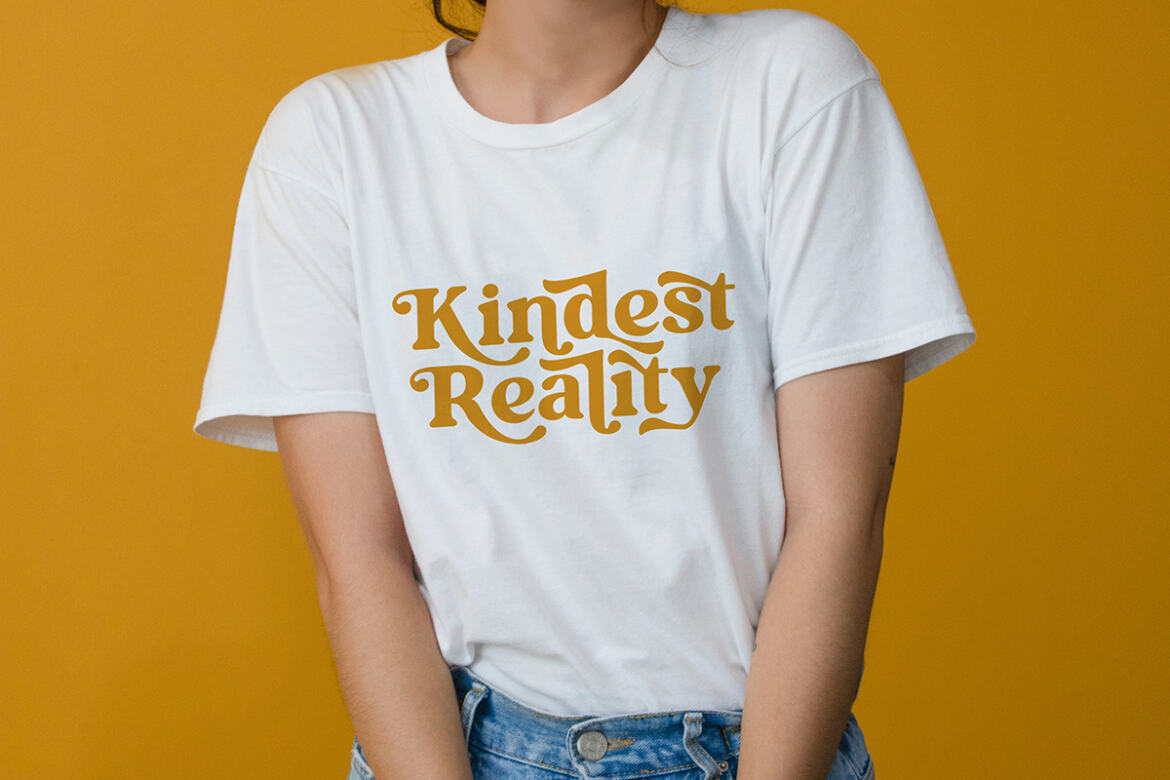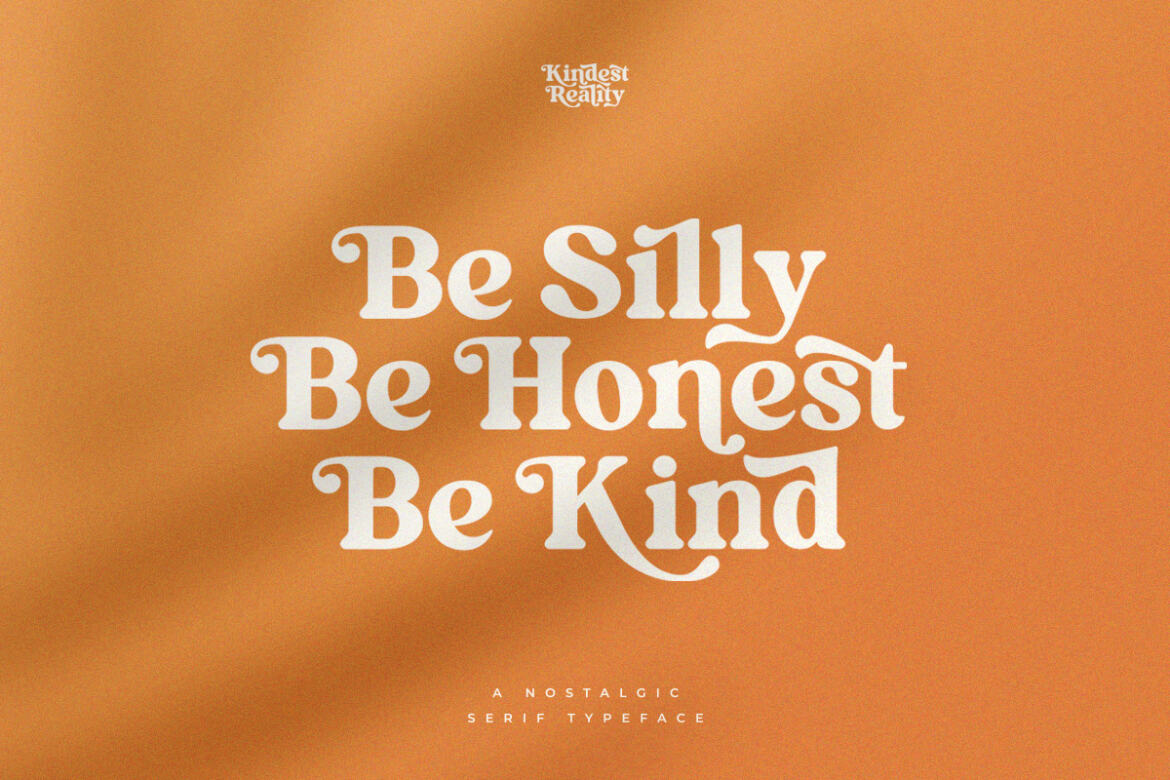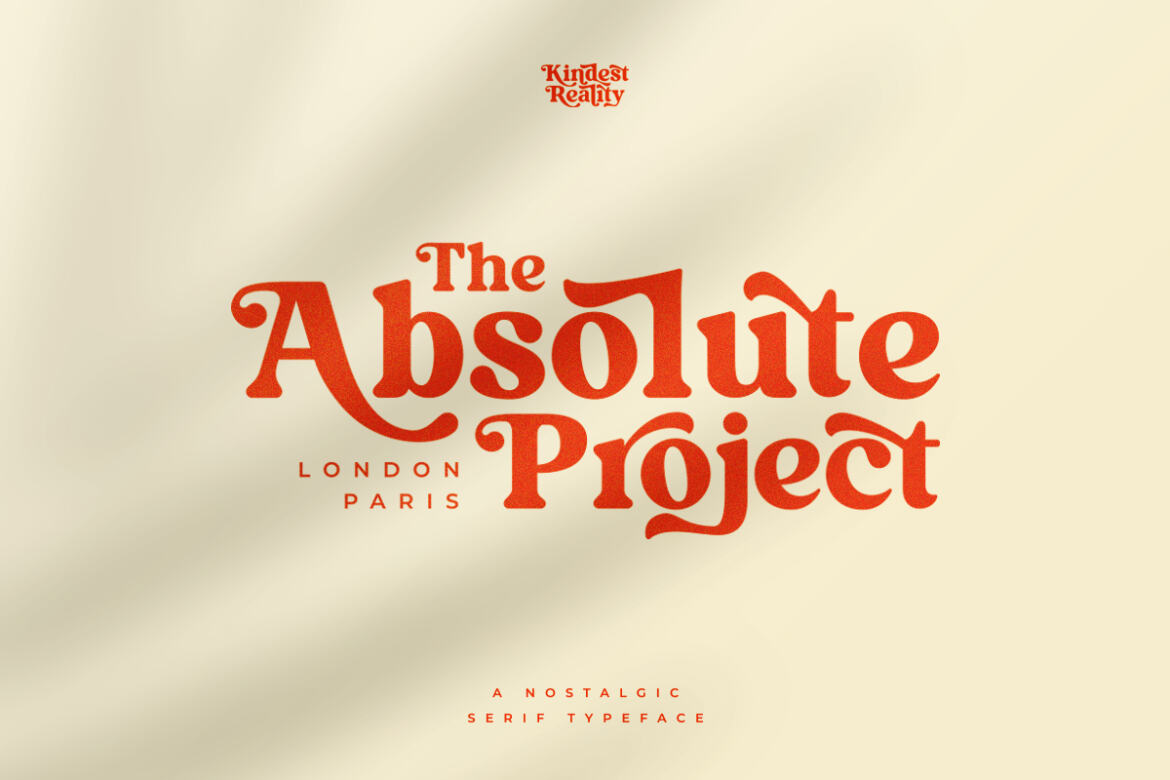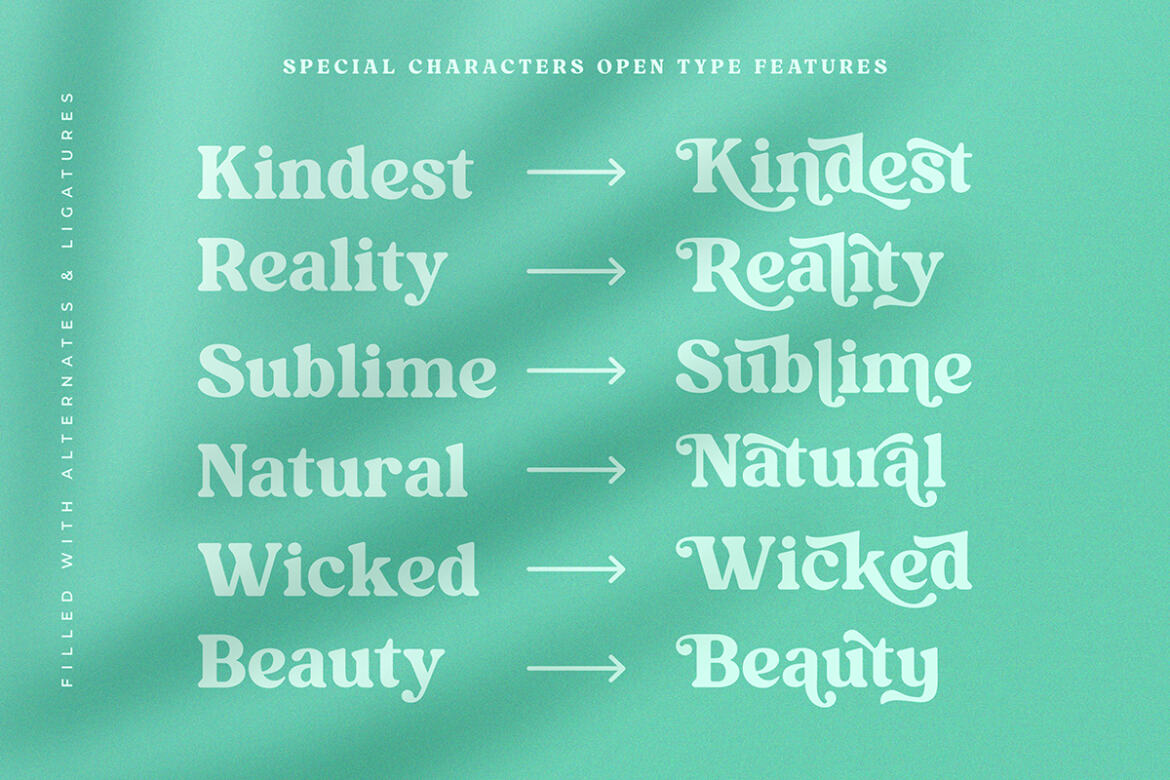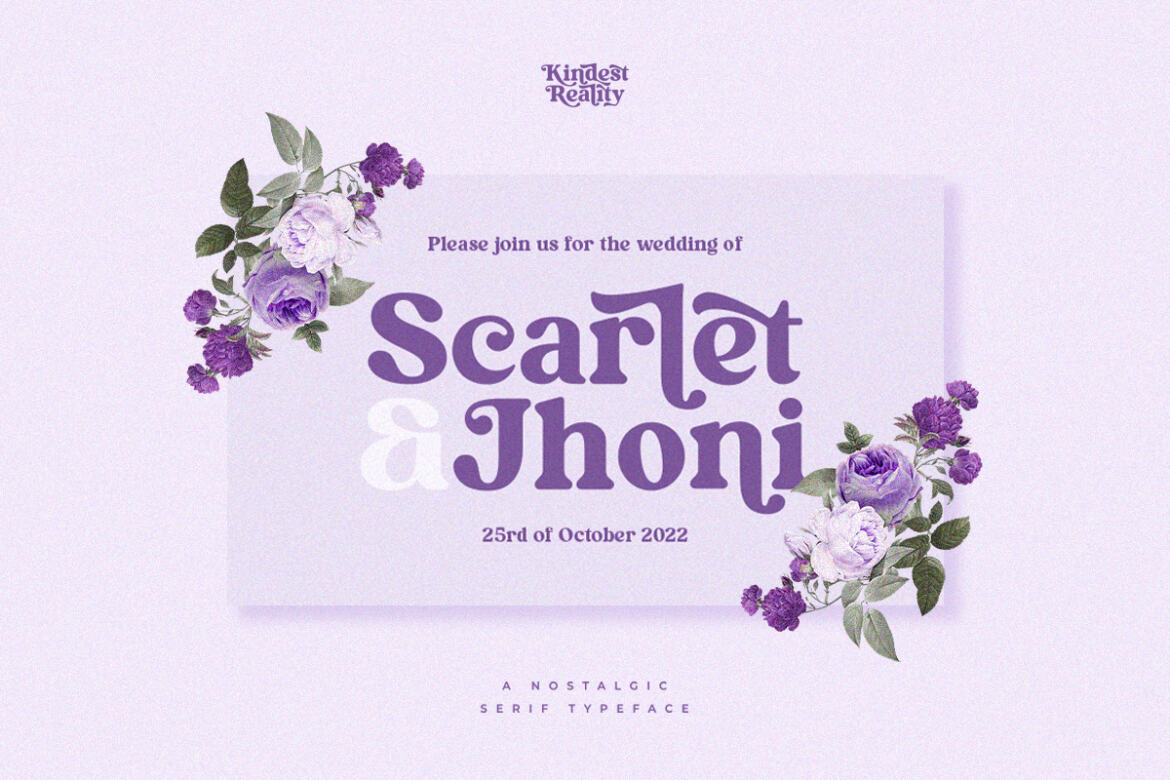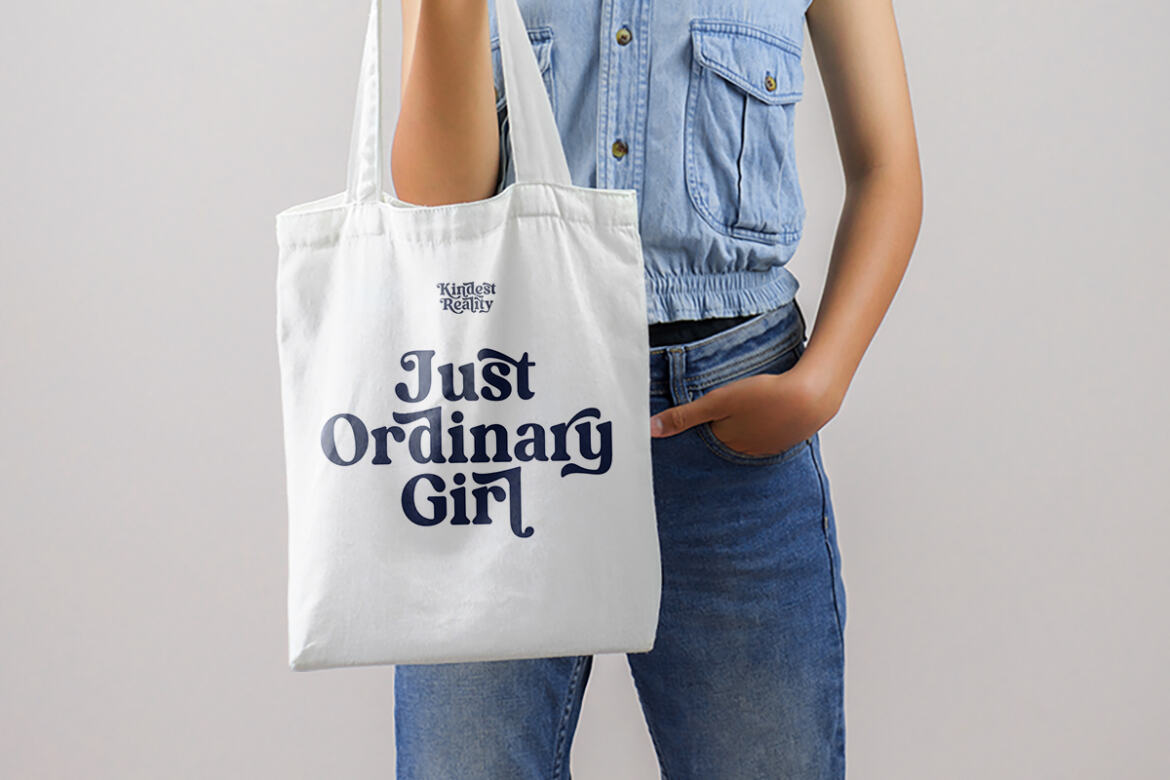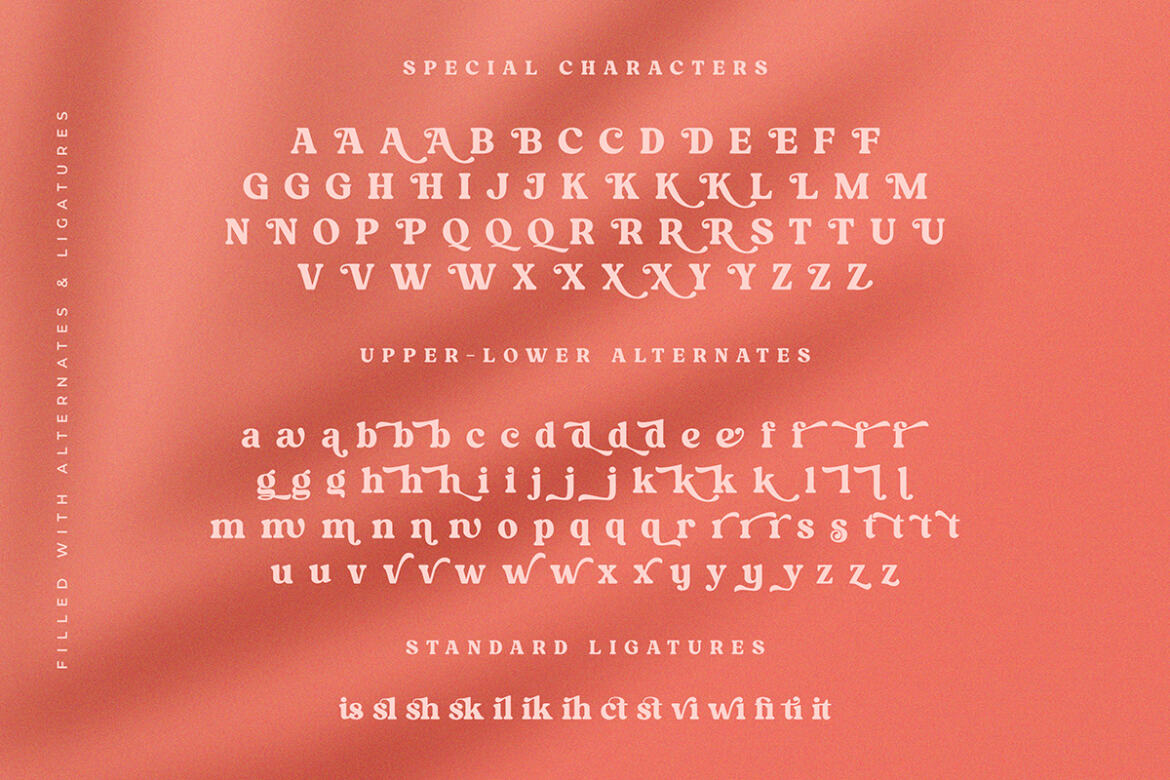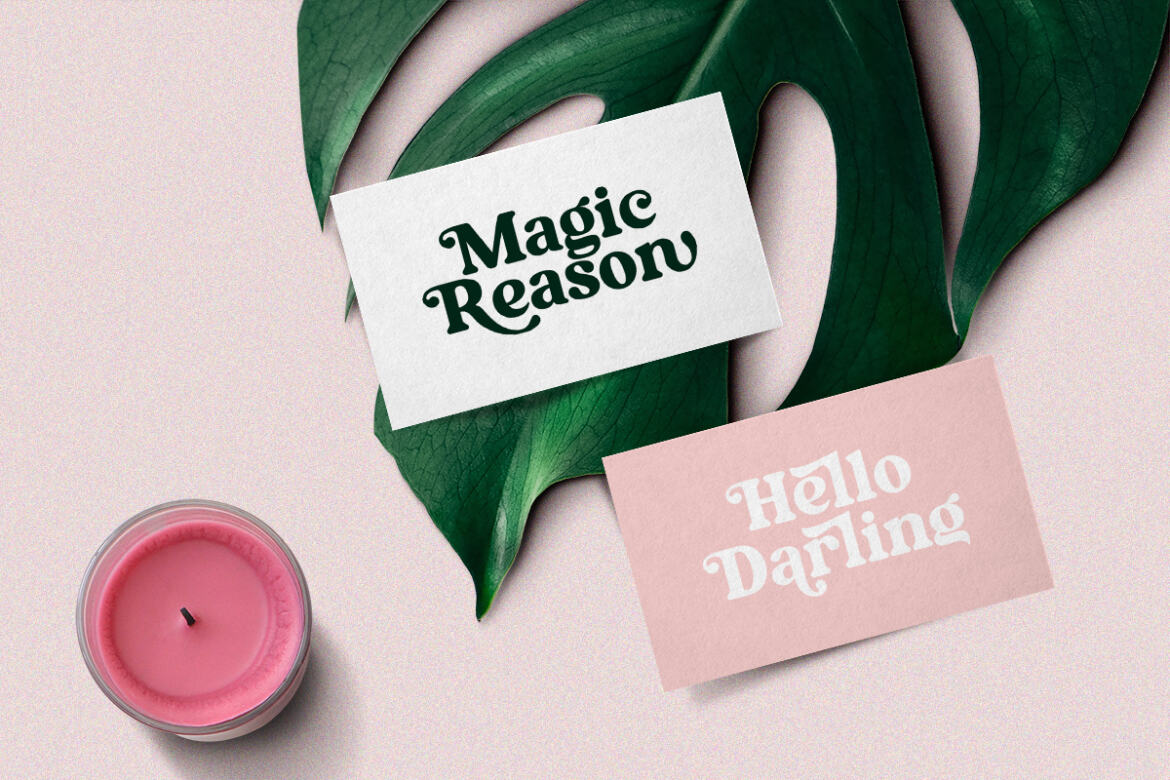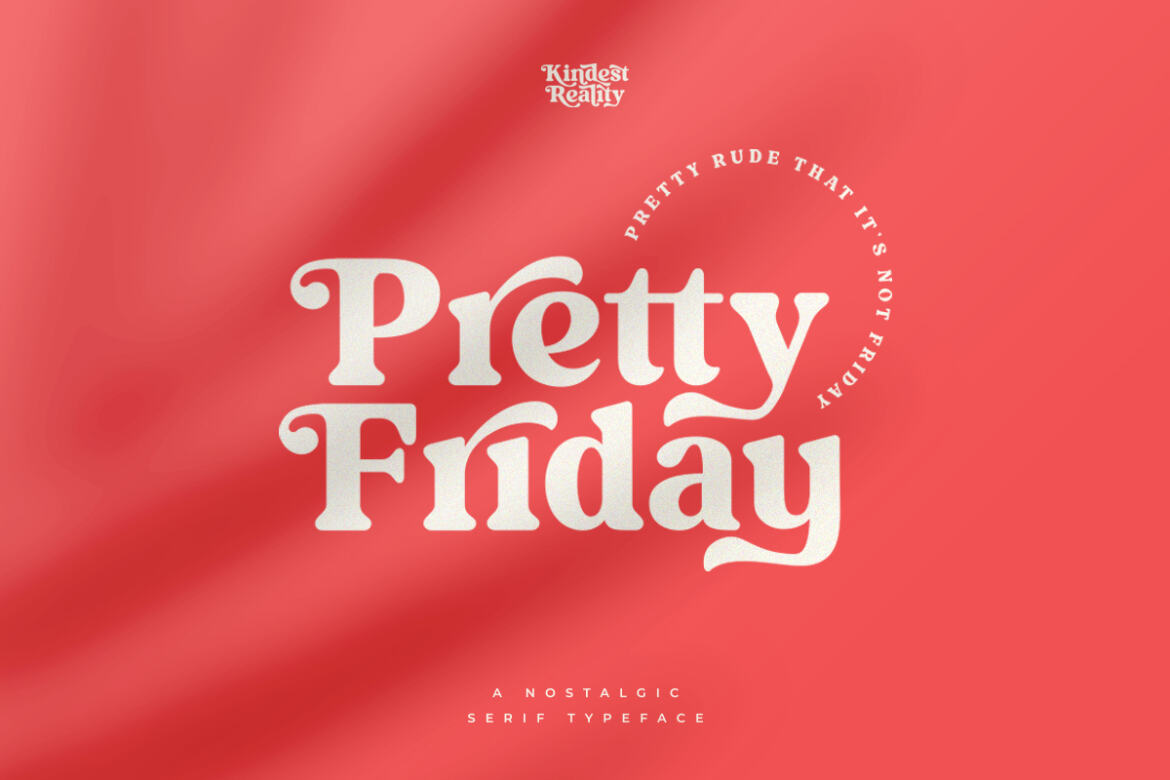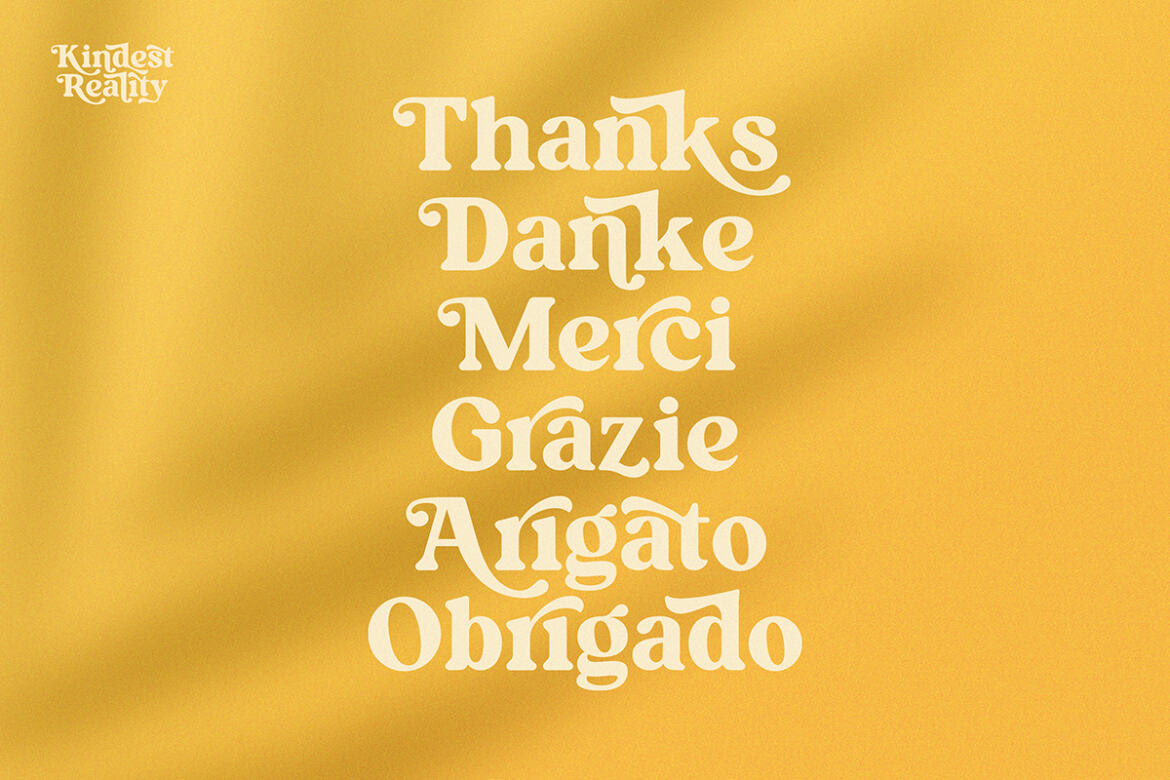
Kindest Reality Is A Nostalgic Serif Font Inspired By Classy and Curve Character.
Font Features :
• • alternates
• • ligatures
• • multilingual
• • numbers and punctuation
• • uppercase & lowercase